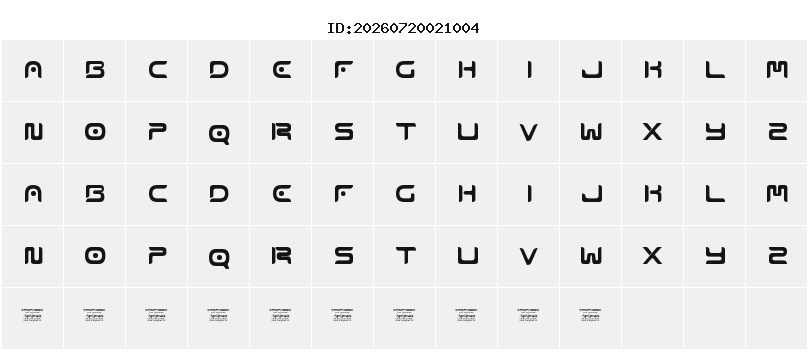
Emophonic Preview
• Font Name: Emophonic
• Font Style: Gras
• Full Font Name: Emophonic
• Version: Version 1.0 March 21, 2005
• Character Count: 80
About Emophonic.ttf
Emophonic.ttf is a modern, elegant sans-serif font designed for ultimate readability and visual harmony. Perfect for branding, headlines, web design, and print materials.